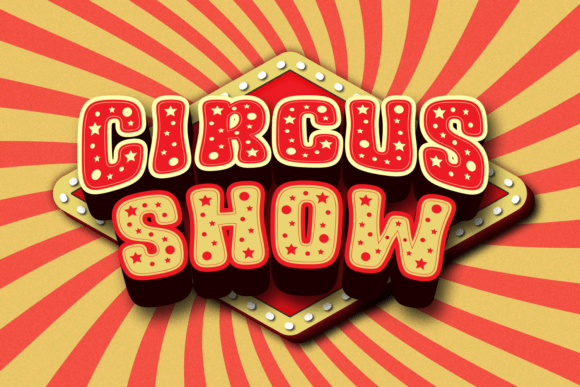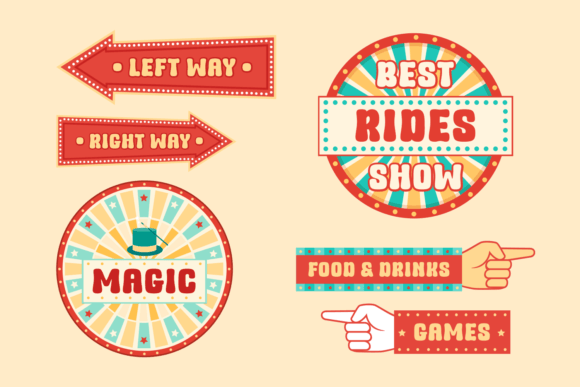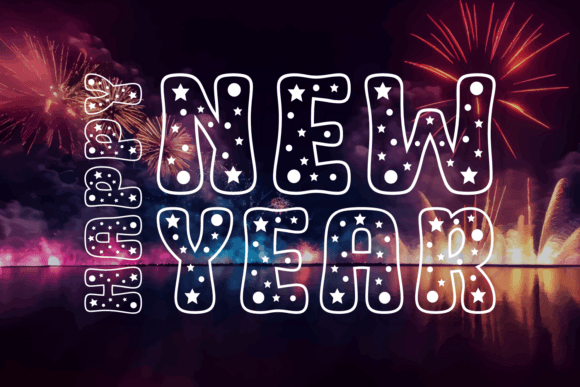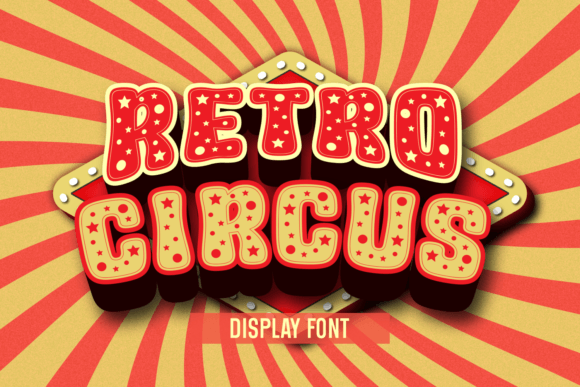
Introduction to Retro Circus Font
Retro Circus is a playful and eye-catching display font that brings a touch of whimsy to your projects.
Its decorative style features charming little stars and bubbles incorporated into each letter, adding a nostalgic and festive flair Perfect for creating a fun and retro vibe in your designs, this font is sure to captivate with its unique and cheerful personality.
Key Features of Retro Circus Font
Why Choose Retro Circus Font?
Retro Circus Font offers exceptional quality and versatility, making it a valuable addition to your design toolkit. Whether you’re creating for personal projects or commercial use, Retro Circus Font delivers professional results.